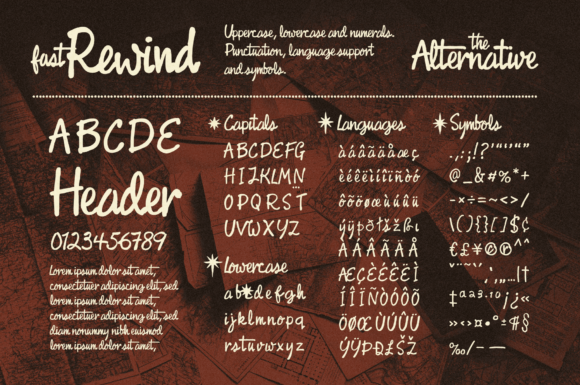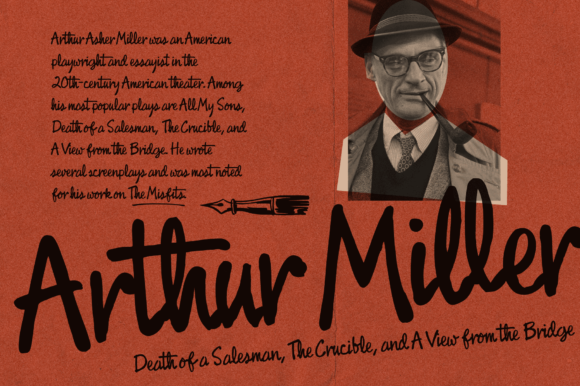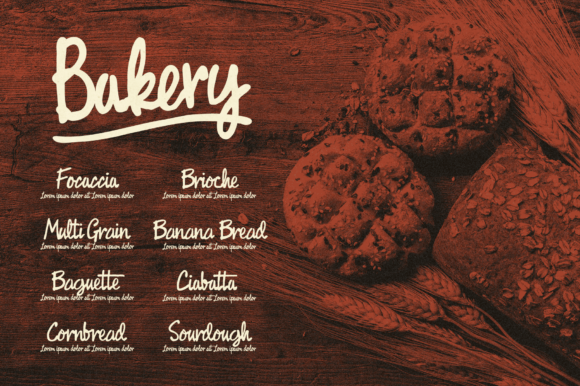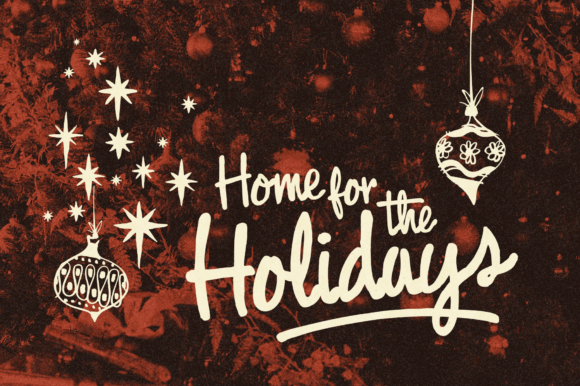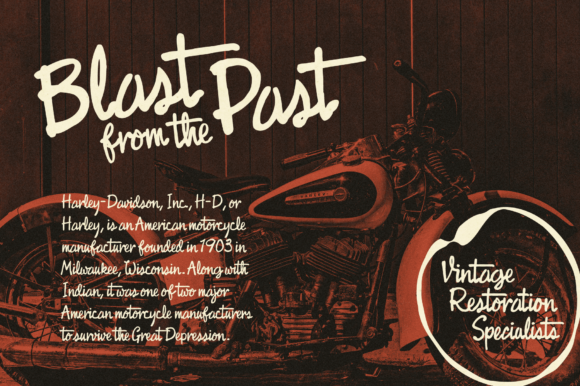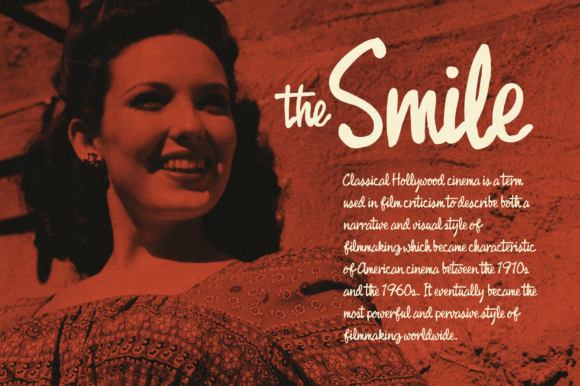
Introducing Fast Rewind Font: Elevate Your Creations with a Relaxed, Adaptable, and Neat Handwritten Style
In the world of typography, a font can make or break a design. For designers, crafters, and creatives, finding the perfect font that combines style, adaptability, and ease of use is a constant quest. If you’re on the lookout for a font that can elevate your creations and give them a trendy, stylish edge, look no further than Fast Rewind Font.
What is Fast Rewind Font?
Fast Rewind is a relaxed, adaptable, and neat handwritten font designed to bring a touch of modern elegance to your projects. Its unique charm lies in its ability to blend seamlessly into various design contexts, making it an incredibly versatile choice for a wide range of applications. Whether you’re working on a branding project, crafting a social media graphic, or designing a personal planner, Fast Rewind Font is poised to become your go-to companion.
Key Features of Fast Rewind Font
- Trendy and Stylish: Fast Rewind Font boasts a contemporary design that will instantly upgrade the aesthetic of your creations. Its stylish appearance is perfect for projects that require a modern touch.
- Adaptable: One of the standout features of Fast Rewind Font is its adaptability. It can be used in a variety of design contexts, from digital media to print materials, without losing its charm.
- Neat Handwritten Style: The font’s handwritten style adds a personal and approachable feel to your designs. Despite its neat appearance, it retains a sense of warmth and authenticity.
- PUA Encoded: Fast Rewind Font is PUA (Private Use Area) encoded, which means you can access all of its glyphs and swashes with ease. This feature significantly enhances the font’s usability, allowing for greater creative flexibility.
For designers and crafters, the right font can be a game-changer. Here are some benefits of incorporating Fast Rewind Font into your workflow:
- Streamlined Workflow: With Fast Rewind Font’s PUA encoding, you can access a wide range of glyphs and swashes without having to navigate through complicated design processes. This means you can focus on the creative aspects of your project.
- Enhanced Creativity: The font’s trendy and stylish appearance, combined with its adaptability, gives you the freedom to experiment with different design ideas. Whether you’re creating something minimalist or elaborate, Fast Rewind Font can keep up with your creative demands.
- Consistency Across Projects: Using a consistent font across your projects can help build a strong brand identity. Fast Rewind Font’s unique style ensures that your designs stand out while maintaining a cohesive look.
- Access a variety of glyphs and swashes to add depth and personality to your designs.
- Experiment with different combinations of characters to create unique visual effects.
Fast Rewind Font is more than just a typeface; it’s a design companion that can elevate your creations to new heights. Its unique blend of trendiness, adaptability, and neatness, combined with the convenience of PUA encoding, makes it an invaluable asset for designers and crafters. Whether you’re looking to add a modern touch to your branding, create eye-catching social media graphics, or craft beautiful planners, Fast Rewind Font is the perfect choice. Discover the difference it can make in your design journey today.